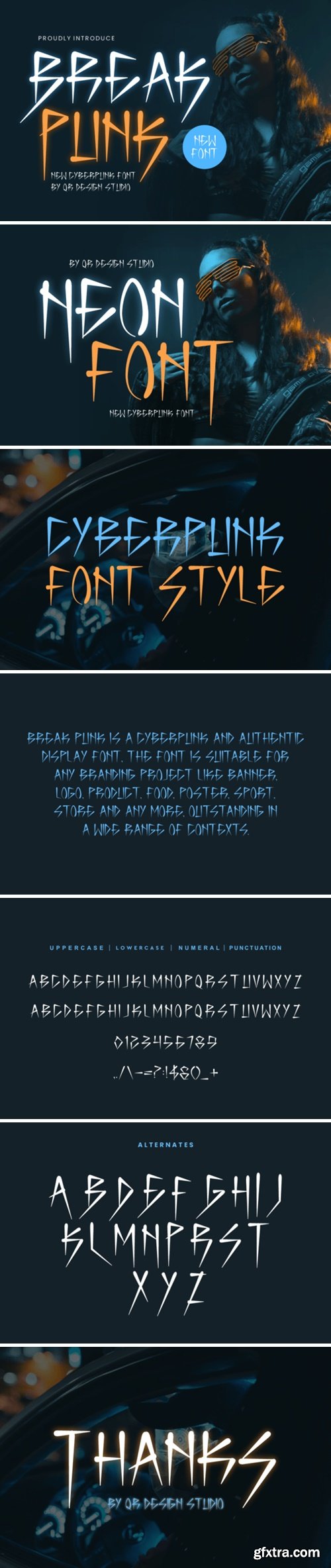
breakpoint Font
Break Punk Font is a neon and authentic display font. The font is suitable for any branding project like logo, sport, and many more. Outstanding in a wide range of contexts.